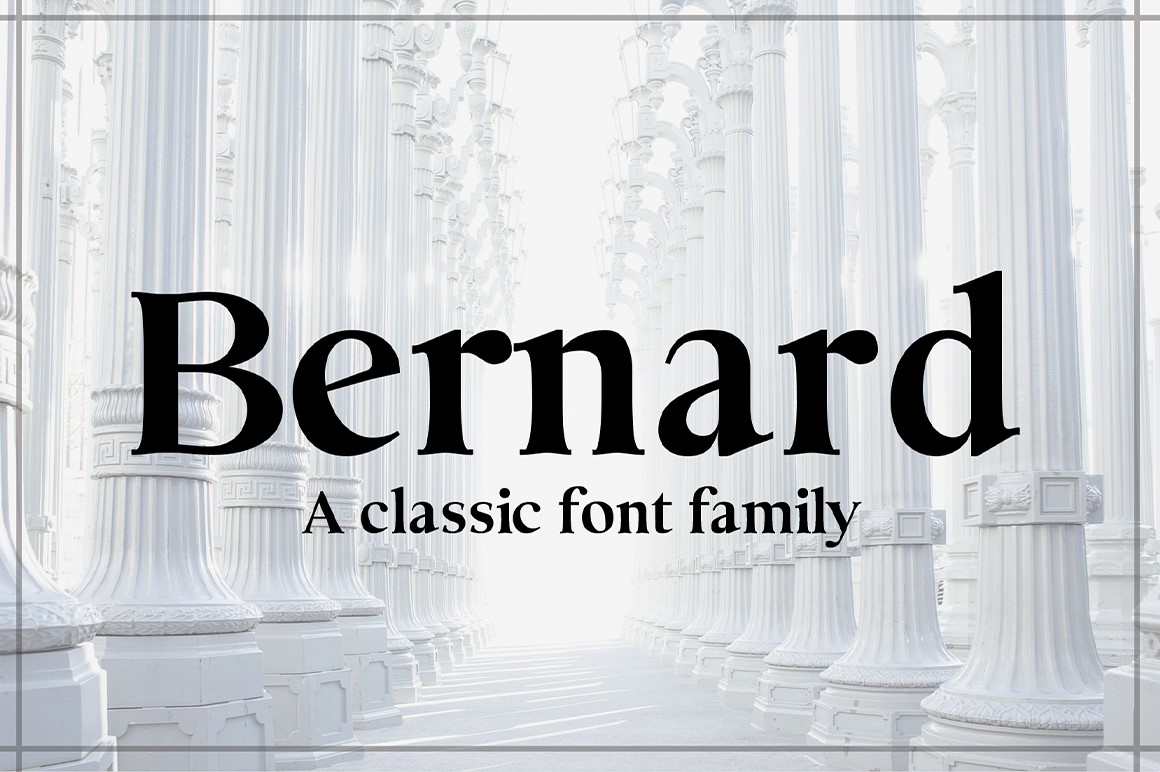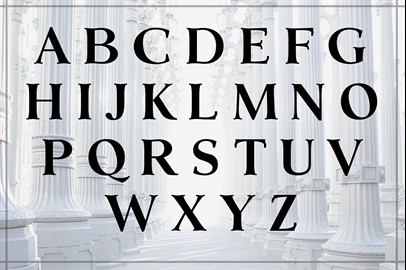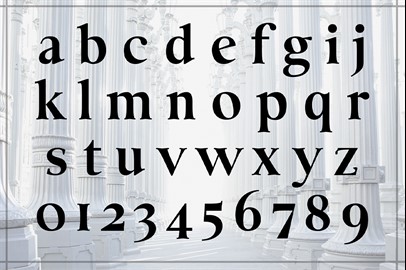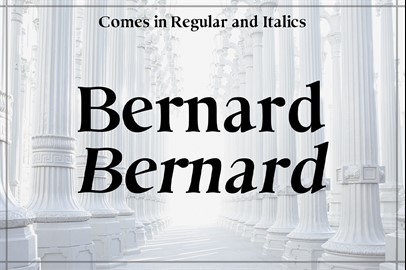
BERNARD: A Classic Typeface
Bernard
is a modern serif font that mixes the modern and classic. A serif font adding subtle curves and minimal serifs. Great for mastheads, magazines, logos, and headers. Comes with numbers, symbols, and special characters.